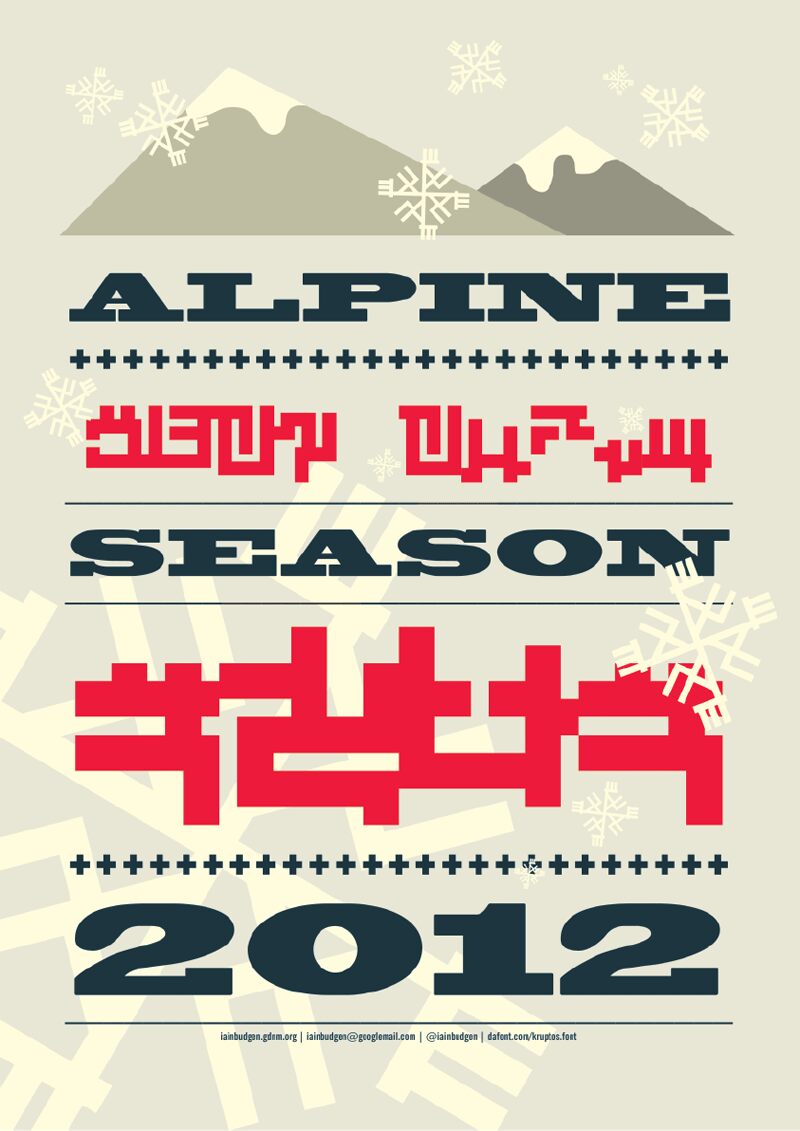
Kruptos by Iain Budgen is a free Thai-inspired display font with broad, squared forms and an assertive architectural weight. Deep notches, long horizontal strokes, and abrupt right angles give the lettering the look of a tightly engineered script.
Posters are its strongest setting, especially for music, nightlife, or experimental cultural events. The same dense silhouette suits album artwork, streetwear graphics, and game title screens, where the lettering can function almost like a geometric emblem. Across these uses, its compressed shapes and Thai visual reference create a distinctly urban, coded atmosphere.
Designed to hide messages in public. It is limited to basic characters and punctuation.